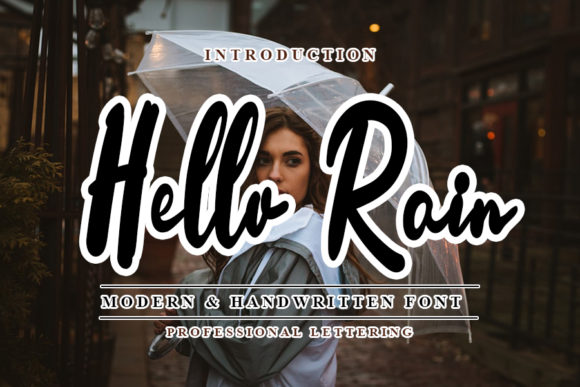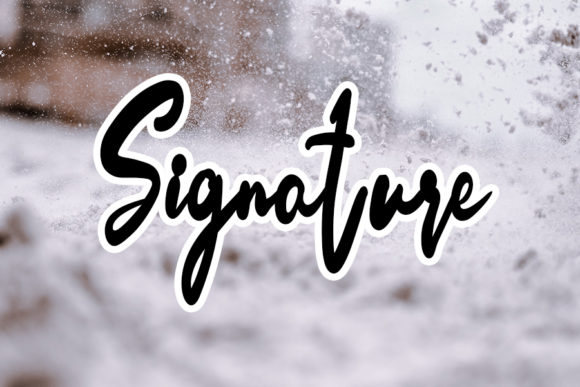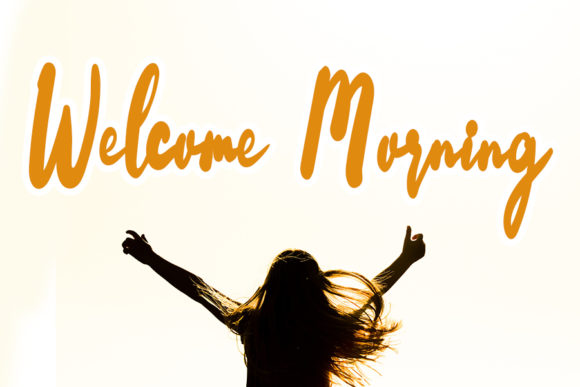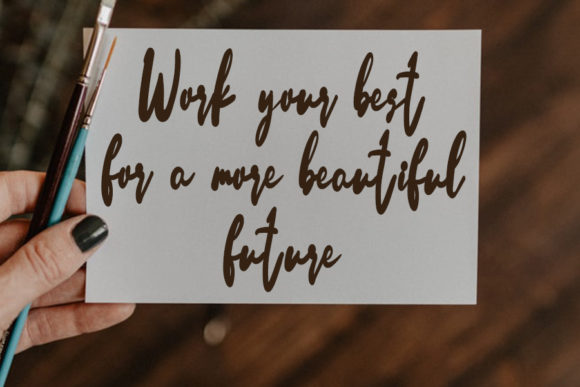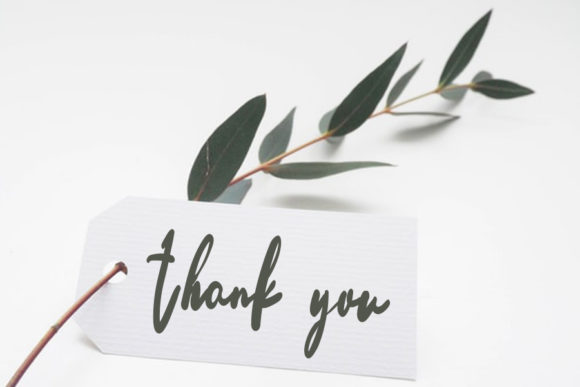
Hello Rain Font
About Hello Rain Font
Hello Rain is a cute and trendy handwritten font. It has beautiful and well balanced characters and as a result, it matches a wide pool of designs. Add it to your most creative ideas and notice how it makes them come alive!